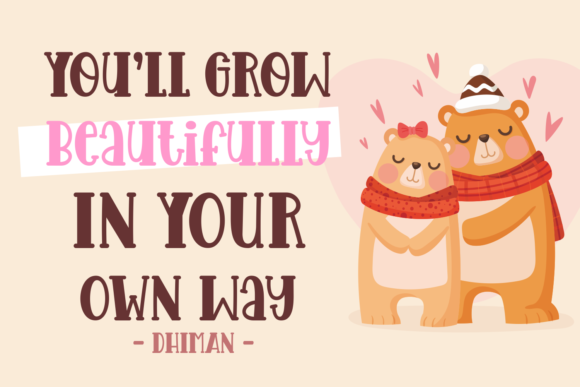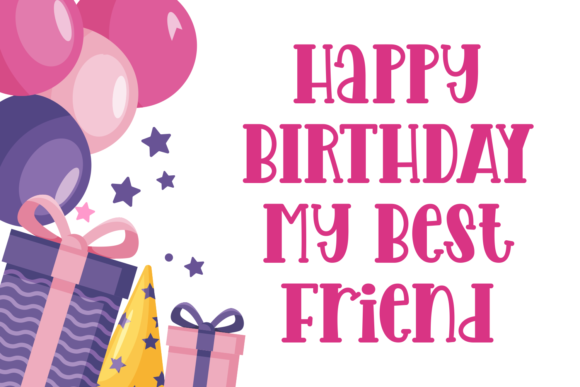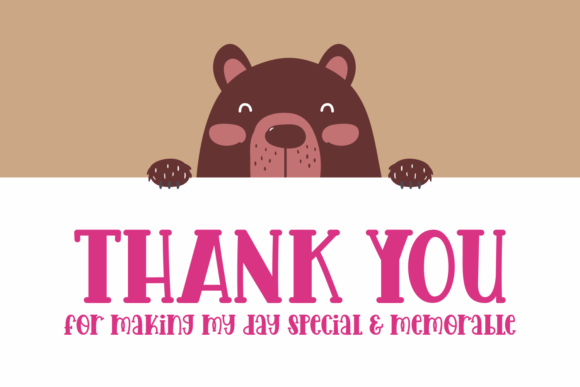
Introduction to Cute Honey Bear Font
Remember that moment when you’re working on a creative project, and you’re stuck on finding the perfect font to match your design’s tone? You’ve spent hours scouring through design resources, only to end up with a generic font that doesn’t quite fit the vibe you’re going for. That’s where the magic of the Cute Honey Bear Font comes in – a fun and friendly display font that’s sure to bring a smile to your face.
Whether you’re designing a cartoon, creating a children’s game, or simply need a lovely touch for your next project, the Cute Honey Bear Font is an amazing choice. Its high-quality design makes it perfect for a variety of creative projects, and with its transparent background, you can easily integrate it into any design.
Key Features of Cute Honey Bear Font
- High-quality design resource suitable for creative projects, including invitations, social media graphics, and more.
- Features a unique, playful style with intricate details, making it an ideal choice for designers seeking a distinctive look.
- Perfect for designers and artists working on creative projects, offering a cute and endearing aesthetic.
Honest Review: Cute Honey Bear Font
Here are some of the things that work well with the Cute Honey Bear Font:
- It has a transparent background, making it easy to combine with other design elements.
- The font is playful and perfect for kids’ projects or any design that requires a touch of whimsy.
- The quality is top-notch, with crisp lines and smooth curves.
- The font is not ideal for serious or professional projects, as it may come across as too childish.
- The character set is limited, so you may need to use a backup font for certain characters or symbols.
Overall, I’m impressed with the Cute Honey Bear Font. It’s a great resource for designers looking to add a touch of playfulness to their projects. Just be aware of its limitations and use it accordingly.
Tips for Getting the Most Out of Cute Honey Bear Font
To get the most out of the Cute Honey Bear Font, use it in combination with a transparent background to create a high-quality design. You can also experiment with different font sizes and colors to create a unique and eye-catching look.
Common Use Cases for Cute Honey Bear Font
The Cute Honey Bear Font is perfect for use in creative projects such as invitations, posters, and social media graphics. Its cute and playful design makes it ideal for projects that require a fun and engaging tone.